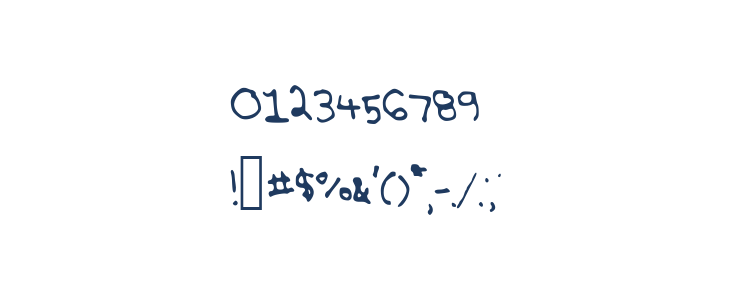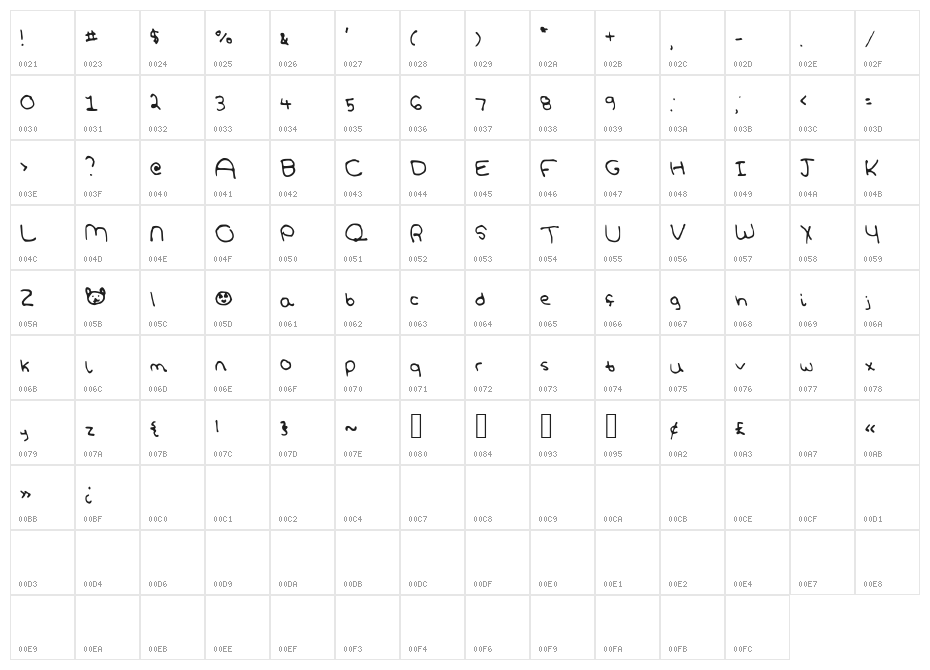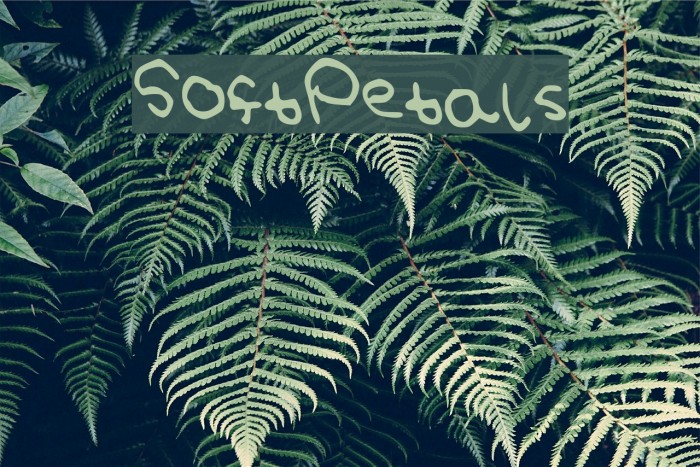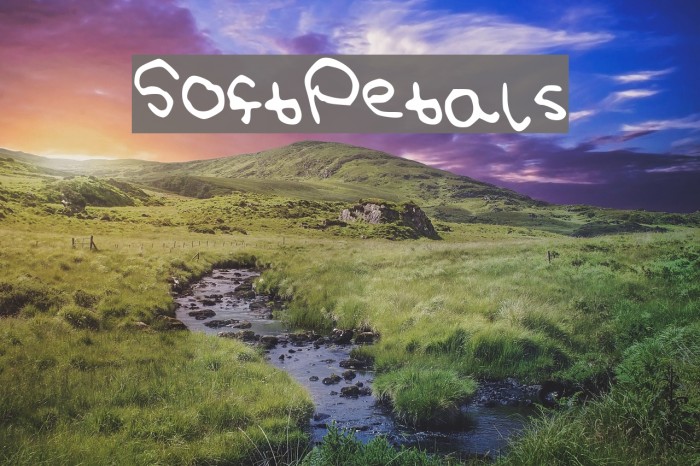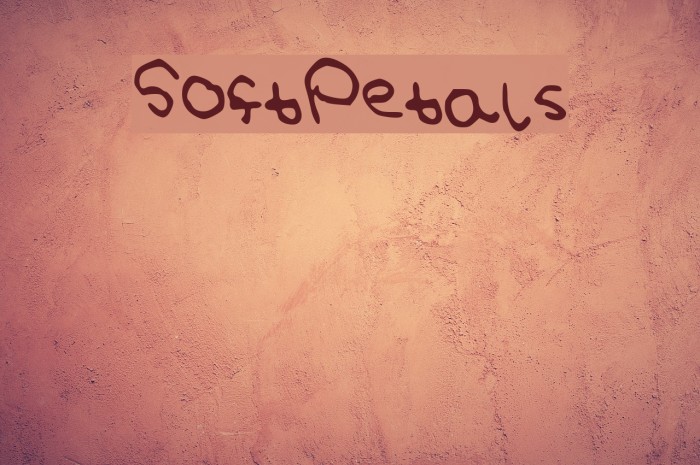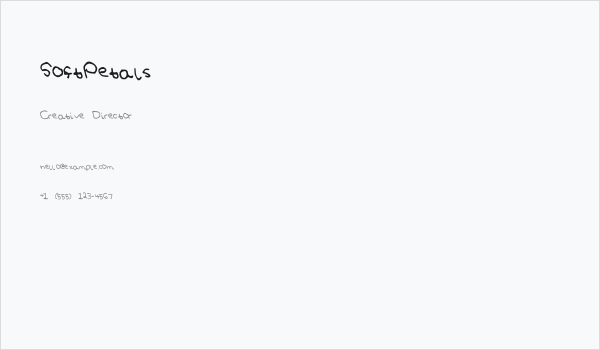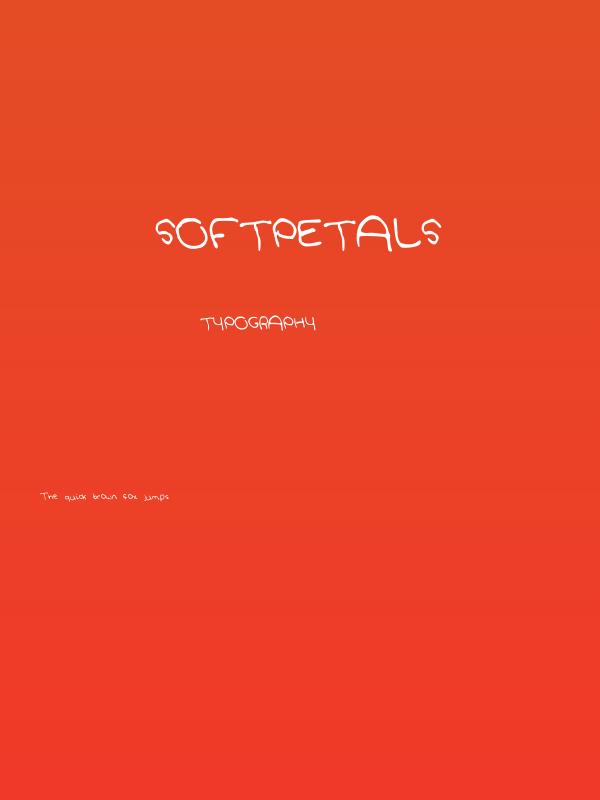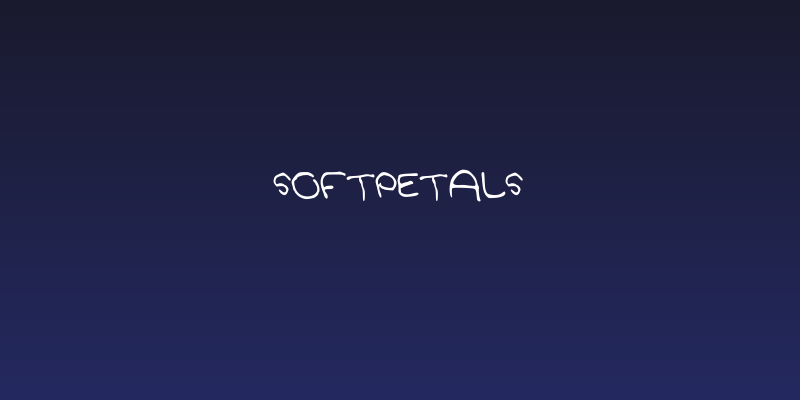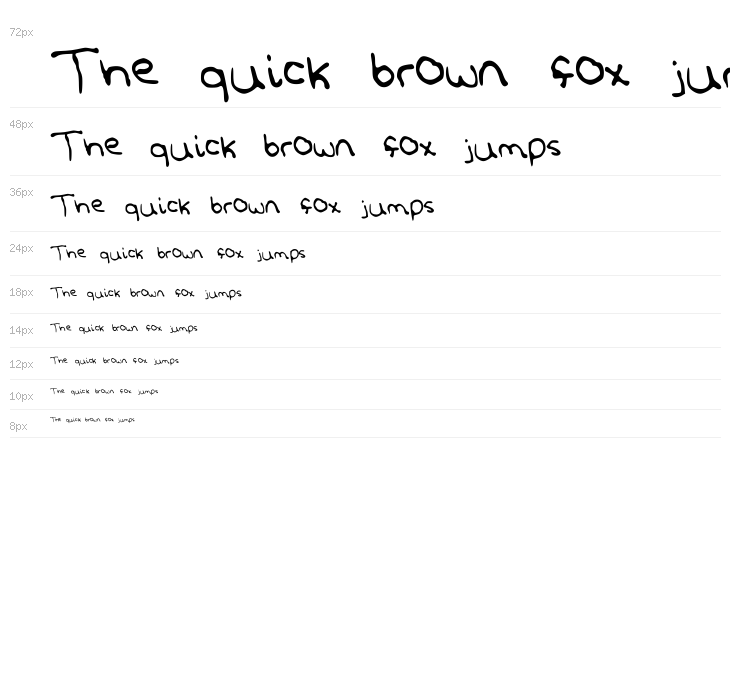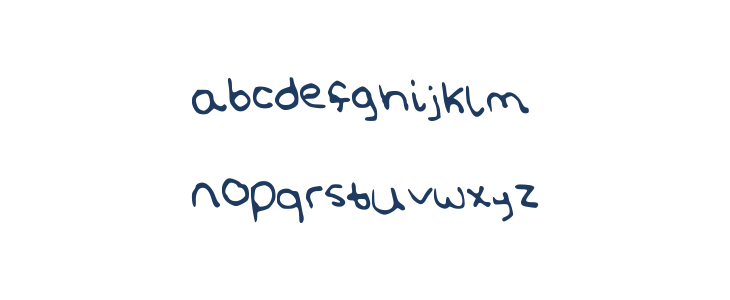
SoftPetals Font
SoftPetals Description
This font features a playful and whimsical style, characterized by its hand-drawn appearance. The letters have a casual, organic feel, with uneven strokes that give it a unique charm. The uppercase and lowercase letters maintain a consistent flow, while the numbers and special characters complement the overall aesthetic. The font's informal nature makes it suitable for creative and lighthearted projects, adding a touch of personality and warmth to any design.
| Proposed Projects | Ideal for children's books, greeting cards, playful branding, and creative posters. |